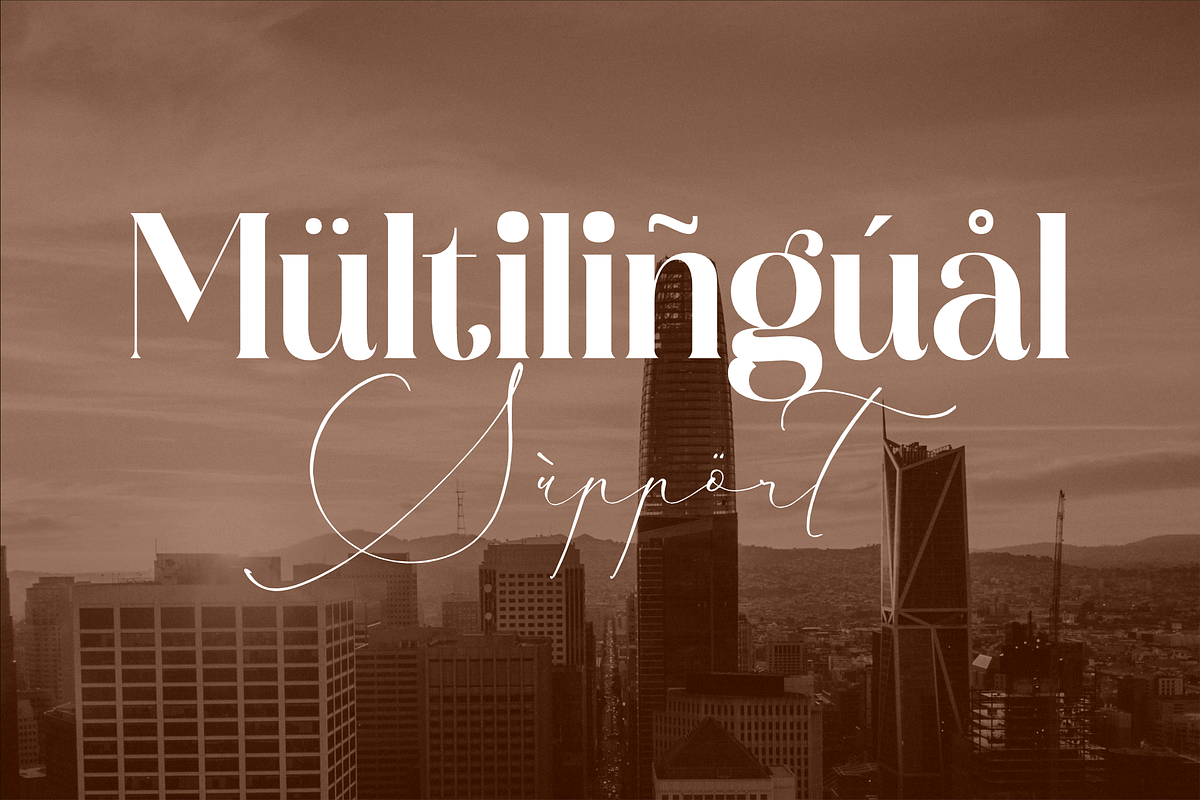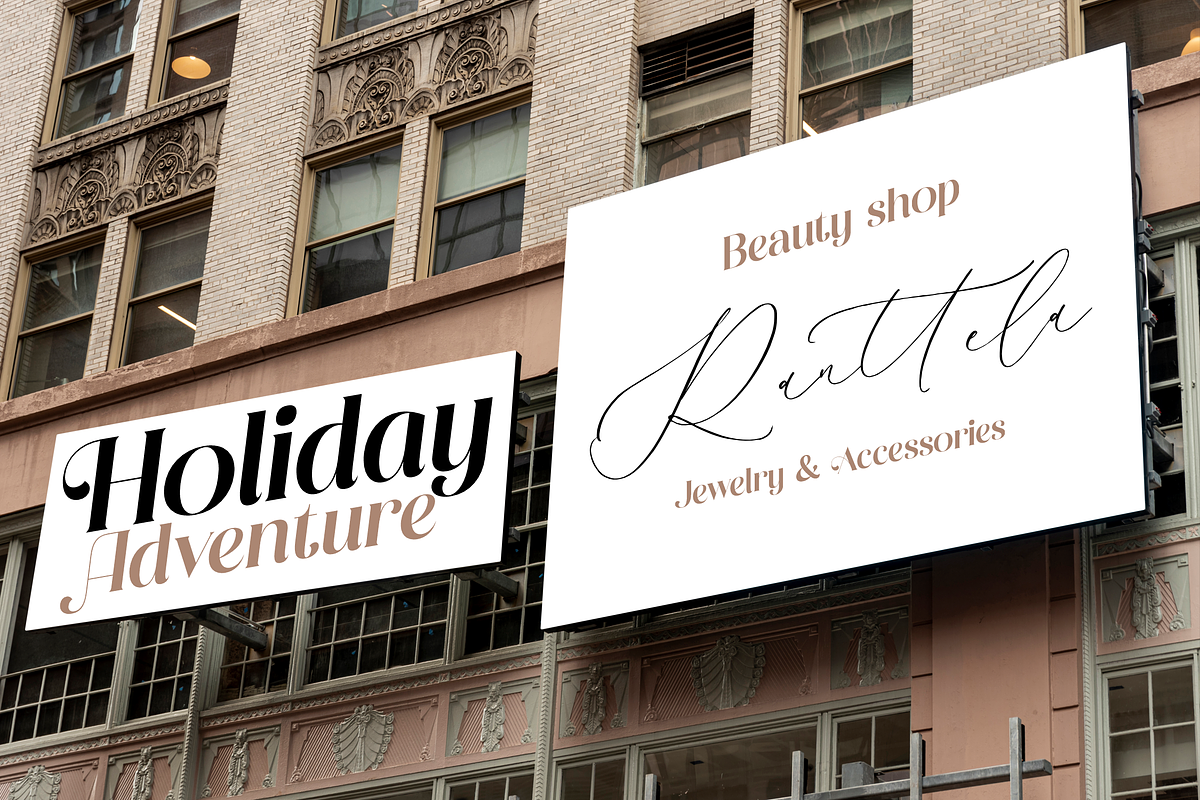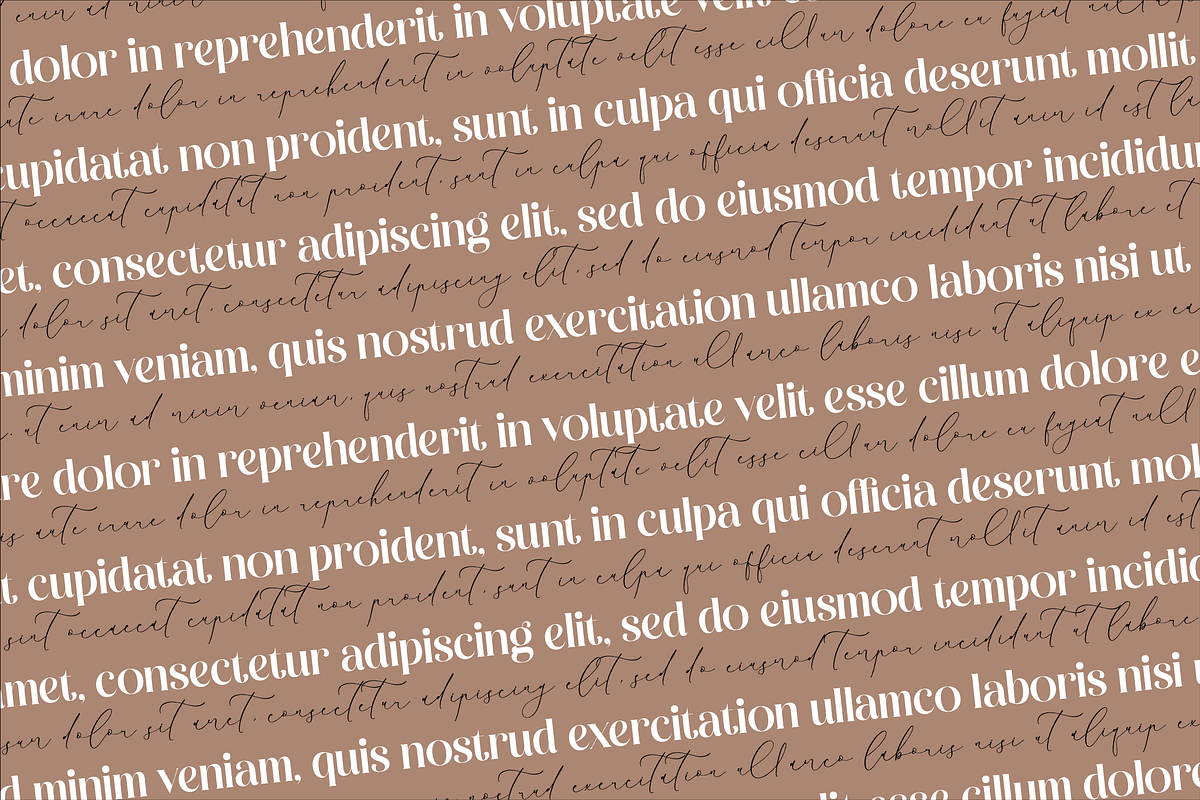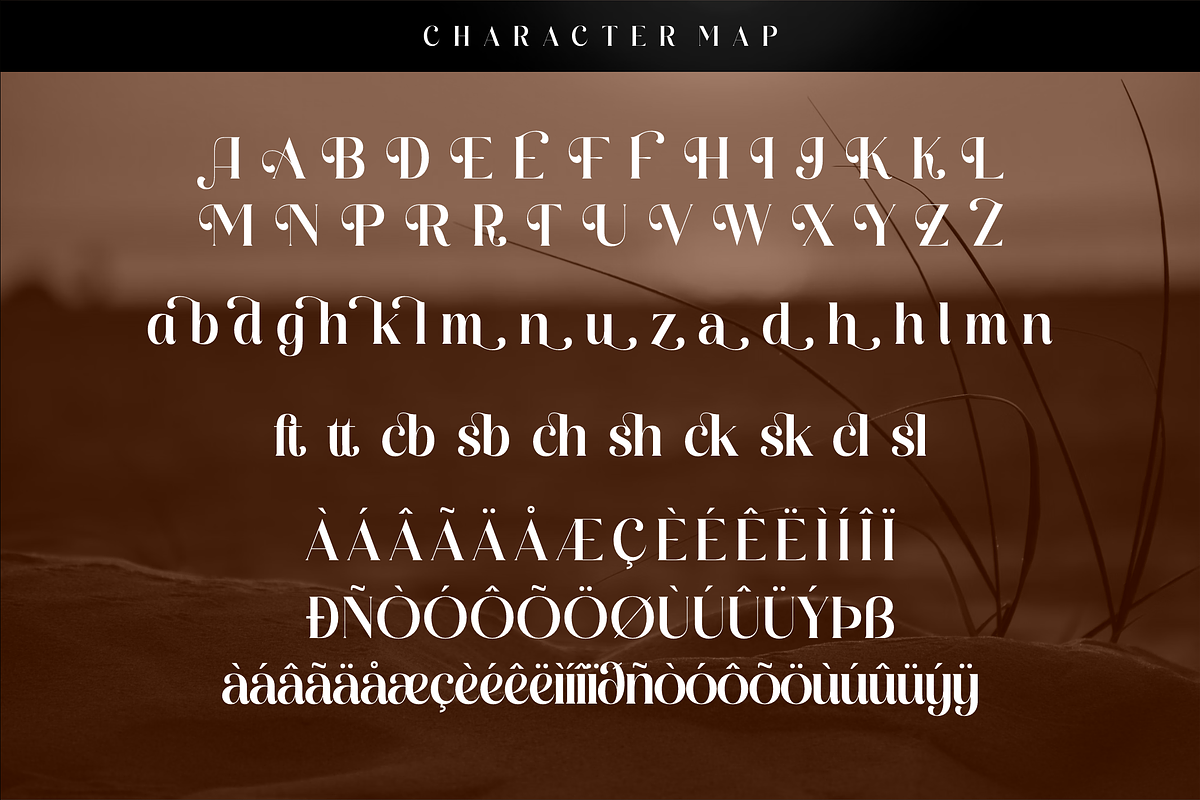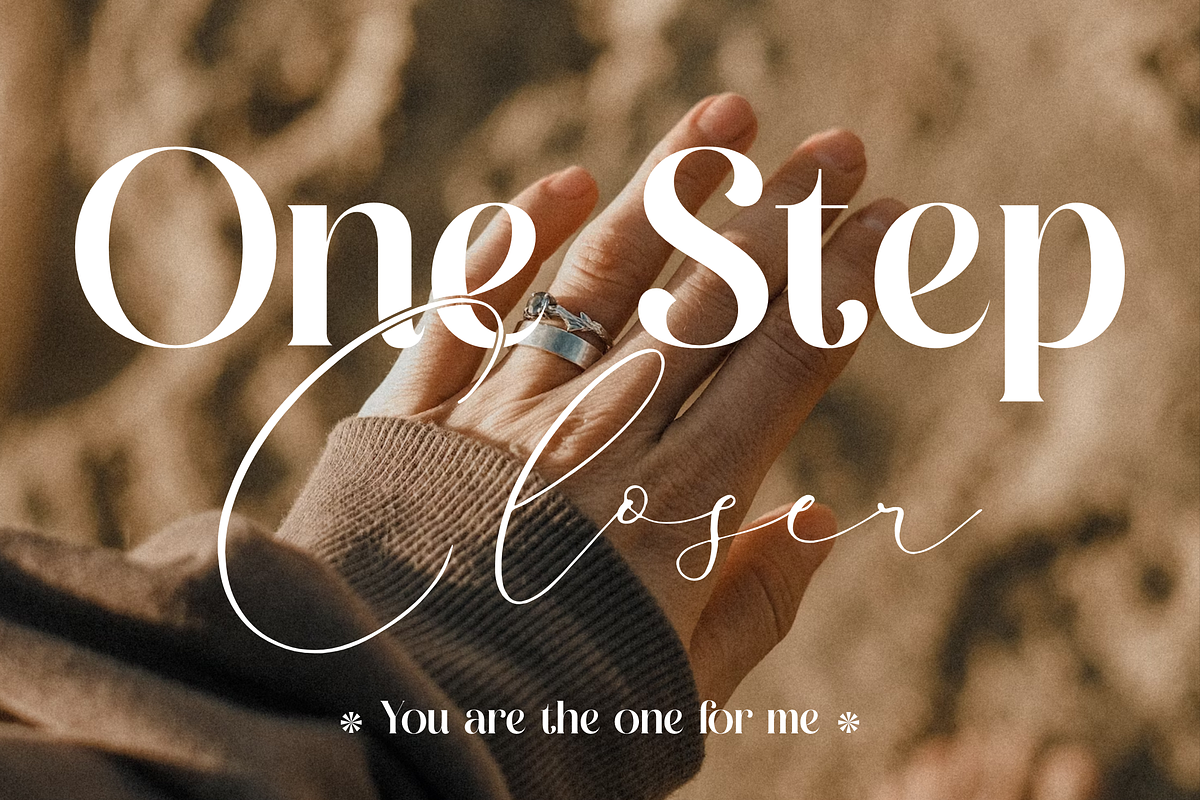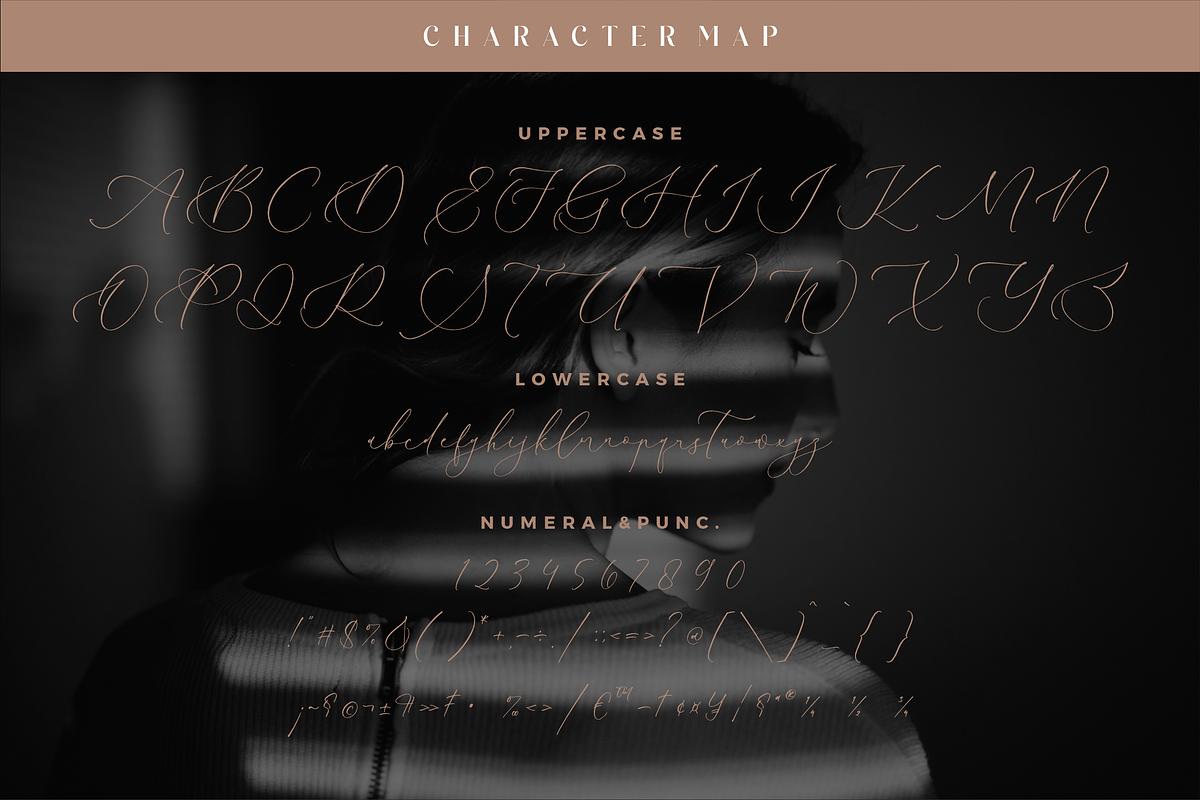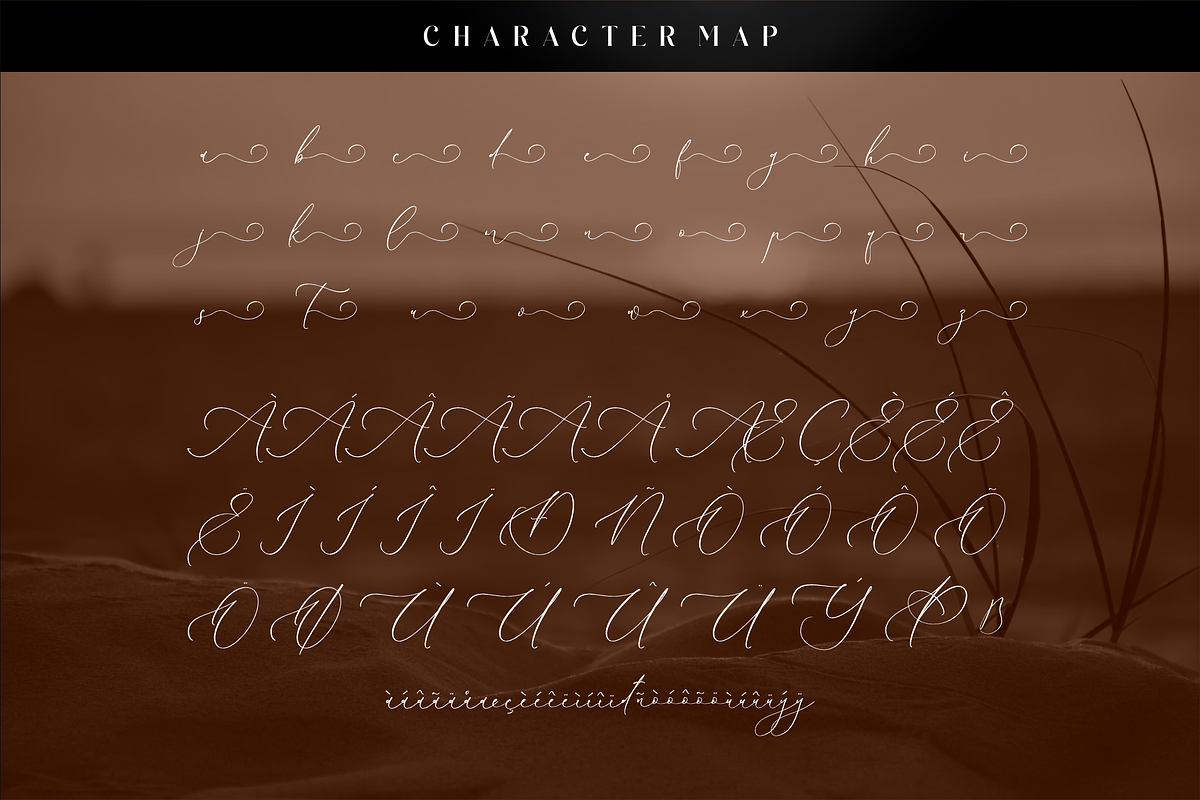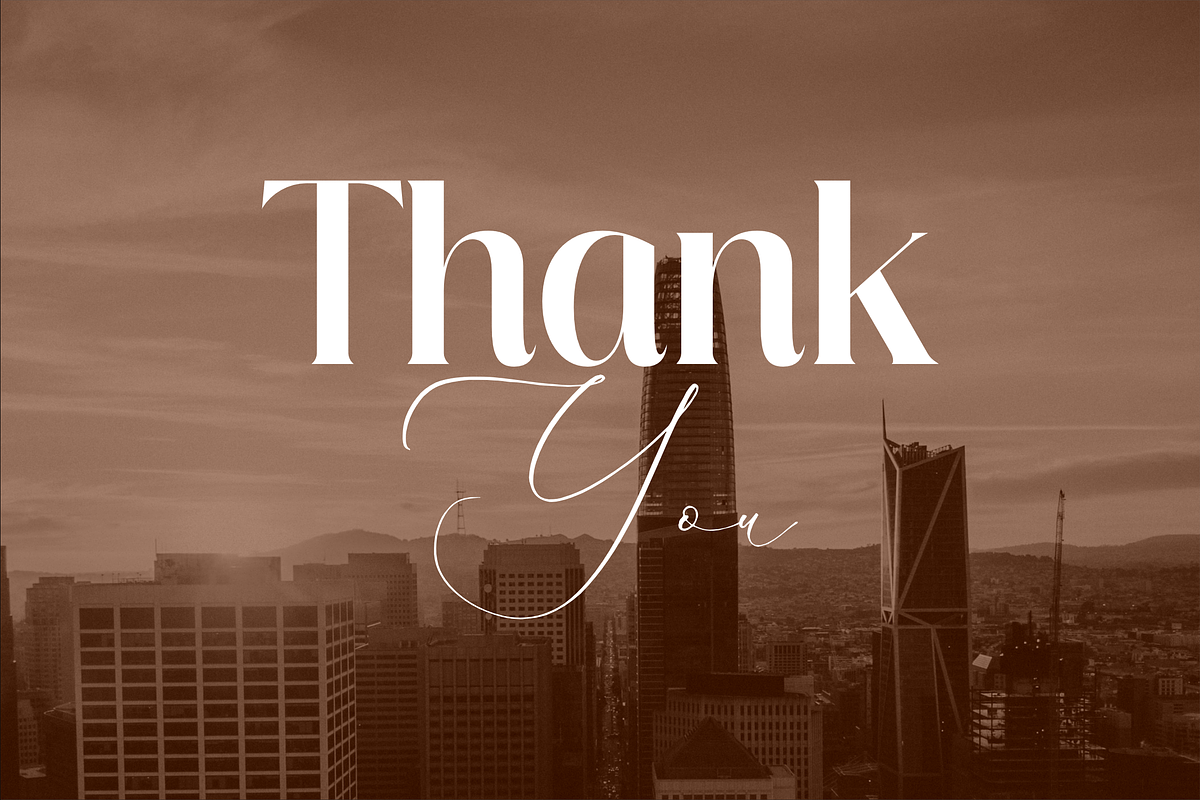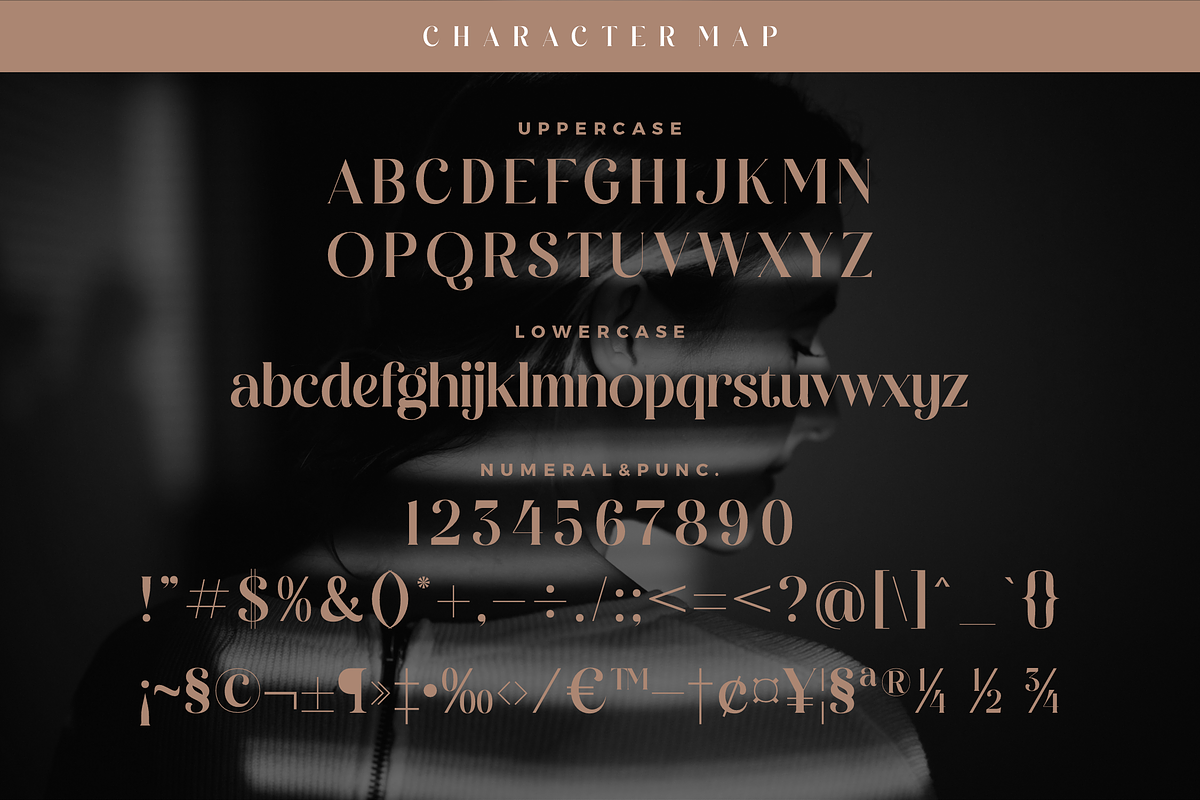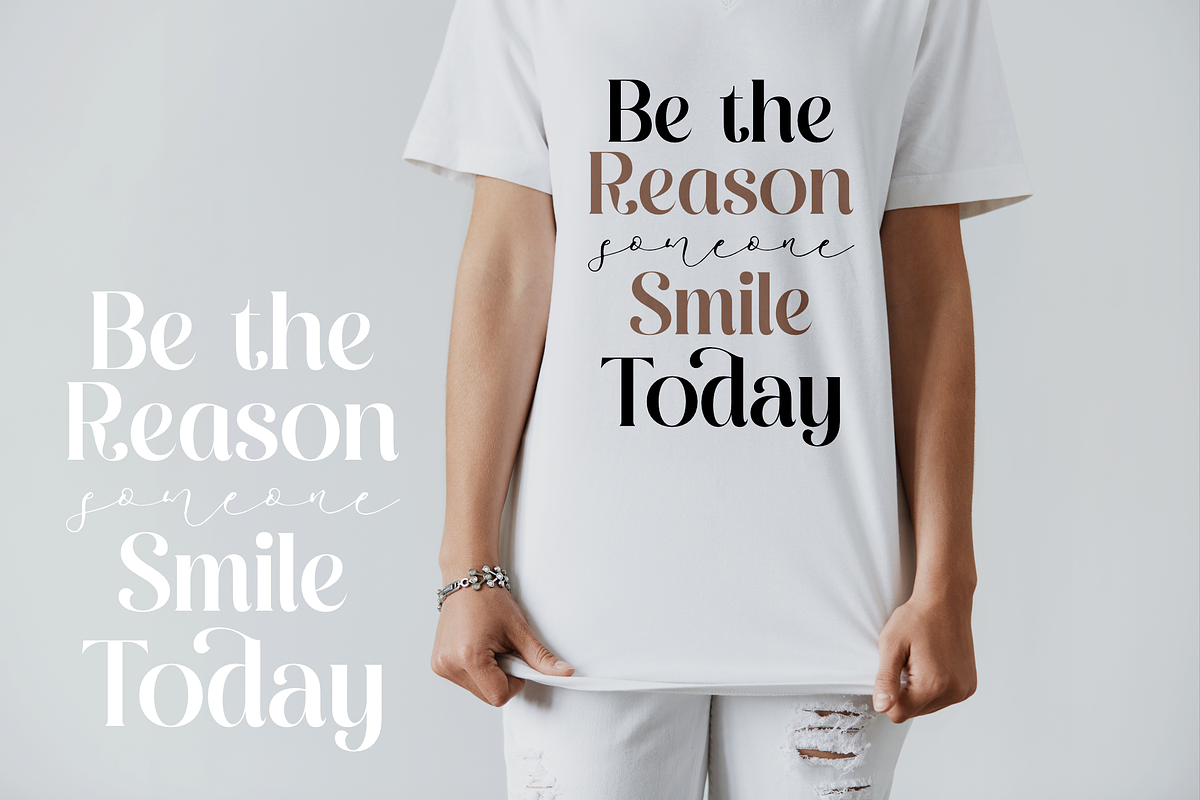
Raligosh Mendophelia Modern Font Duo
Proudly present Raligosh Mendophelia Font Duo , created by Storytype, A serif and script typeface that has own unique style & modern look. This typeface is perfect for an elegant & luxury logo, book or movie title design, fashion brand, magazine, clothes, lettering, quotes, and so much more.